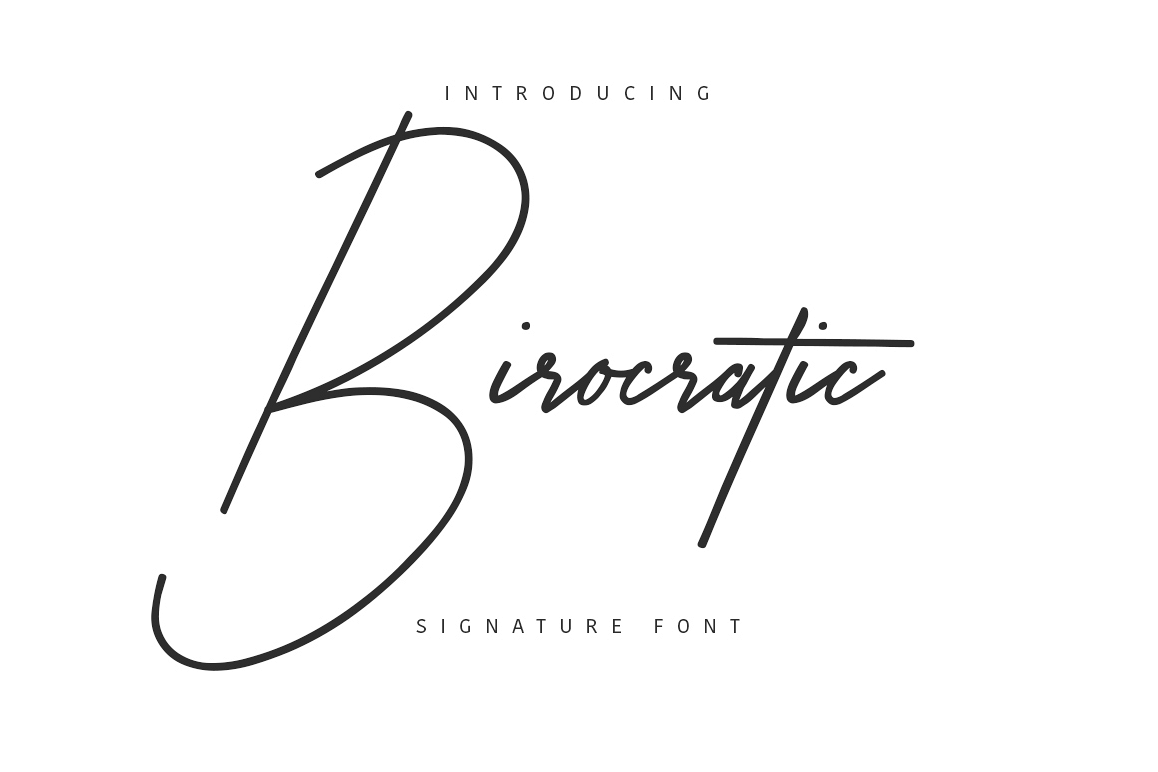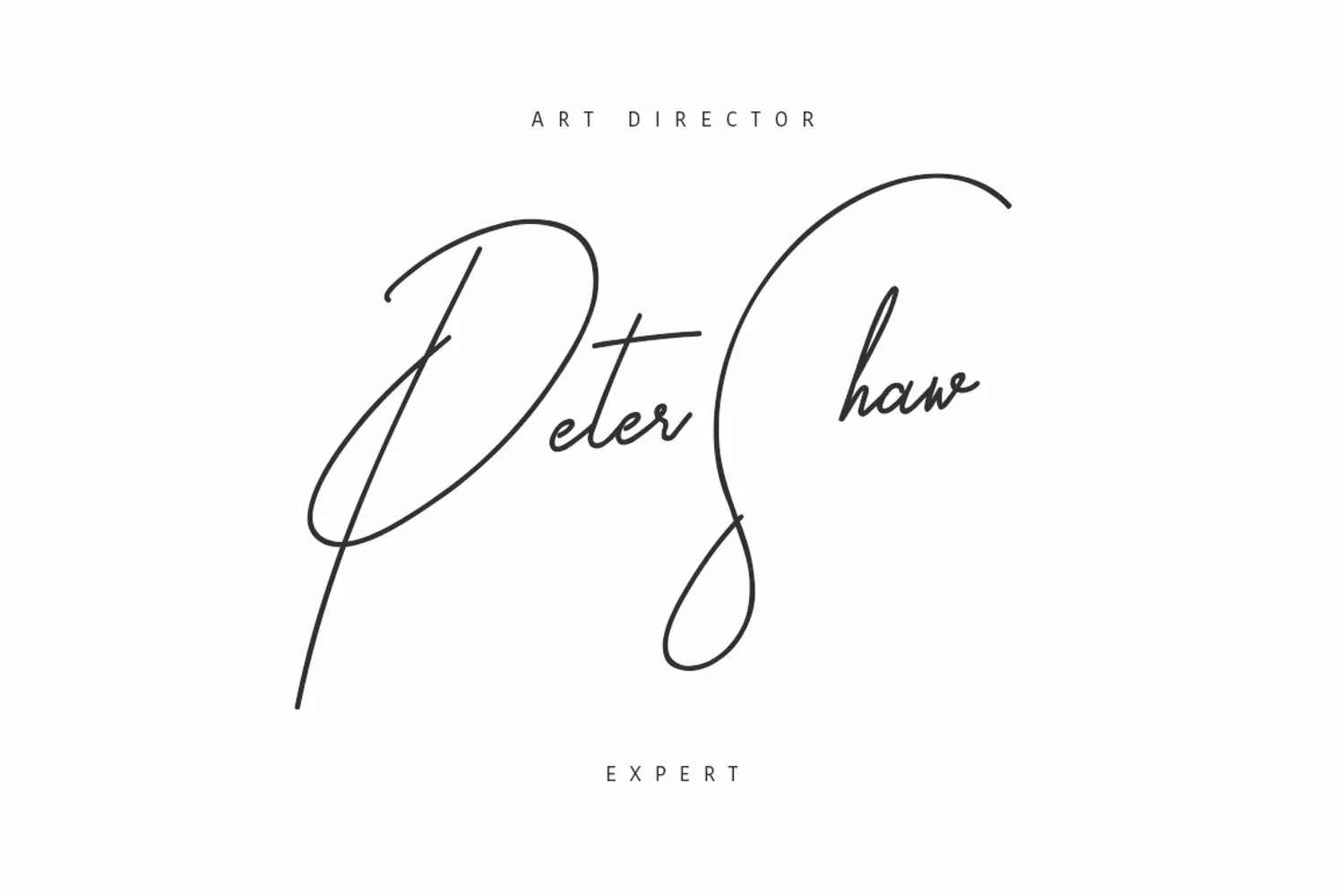
Birocratic Typeface example image 1
Birocratic Typeface
Give your designs an authentic handcrafted feel. "Birocratic Signature" is perfectly suited to signature, stationery, logo, typography quotes, magazine or book cover, website header, clothing, branding, packaging design and more.